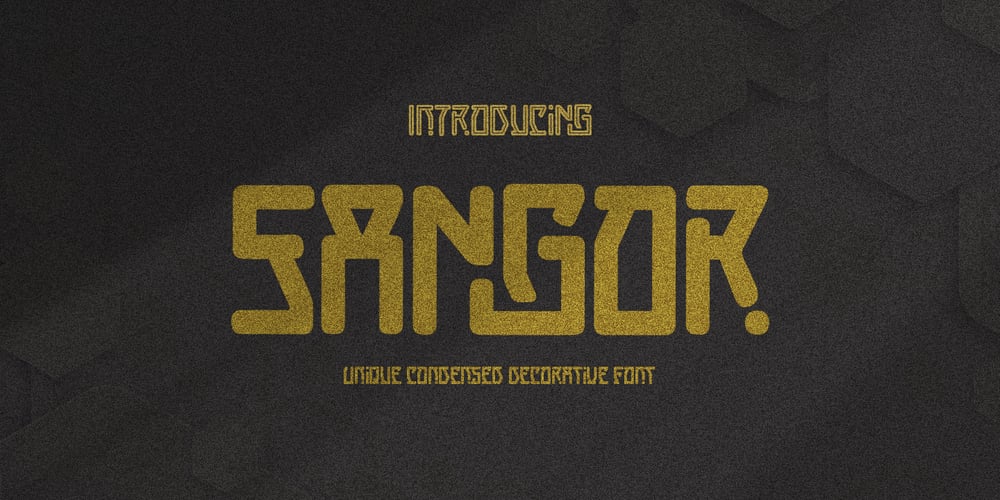
Sangor
Sangor font
Sangor Font Family was designed by Jarnawi Saja and published by Grontype. Sangor contains 2 styles and family package options. Sangor is an unique vintage condensed font. This font designed all round corners that makes it look more soft and charm. Sangor is regular and outline all-caps font that is great for short headlines and titles, but it looks great in print design, vintage mood board, branding, logotypes, titles, editorial design and modern and vintage design.Sangor Features: Single weight Punctuation & Characters Ligatures Glyphs included superscript & Symbol Currencies Multilinguals Thankyou for picking up this font, Happy creating.Regard, Grontype